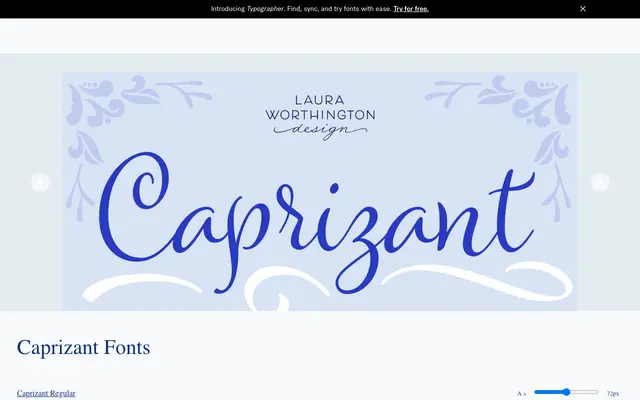
Caprizant
An upright pointed-pen script with 337 swashes, three capital sets and contextual alternates for display and identity use.
Built on letterforms inked with a pointed pen, Caprizant sits upright rather than leaning into a traditional script slant, giving it a lively formality suited to titles and logotypes. The two-weight family is bolstered by 337 swashes, 20 ornaments, dozens of ligatures and alternates that toggle between fully connected and unconnected appearances. Laura Worthington has coded the fonts to expose all these features without requiring professional design software.
An upright pointed-pen script, designed for display use with extensive swash and alternate glyph sets. Classified as script rather than display due to its clear calligraphic structure and letterform construction.